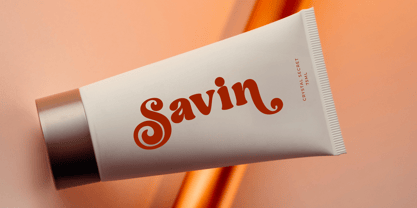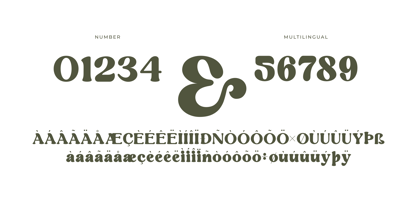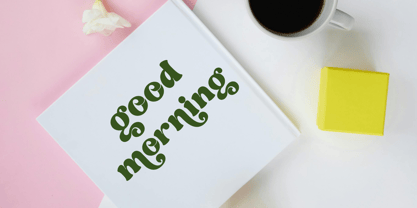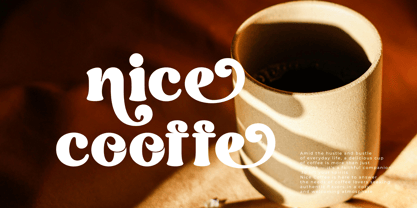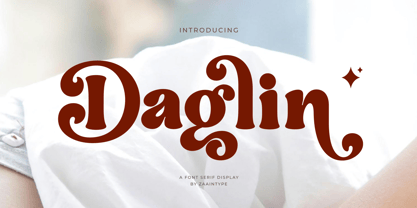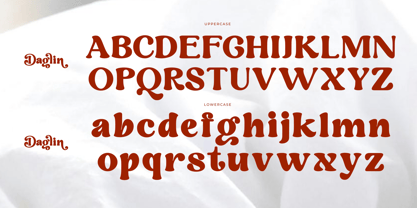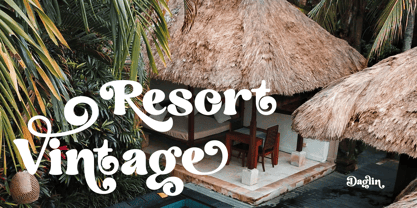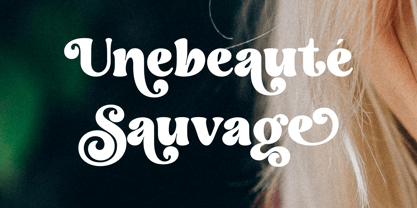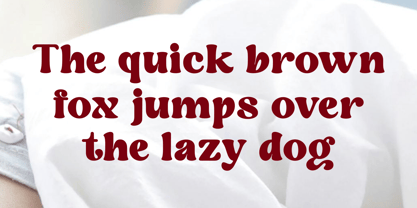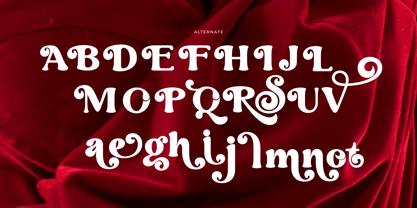
Daglin
by Zaain Type
The Daglin Font Family was designed by Ju Naen and published by Zaain Type. Daglin contains 2 styles and family package options.
Daglin is a bold serif font with a strong and elegant character, available in two styles: Regular and Oblique. Perfect for luxury branding, editorials, and designs that need a bold yet sophisticated touch